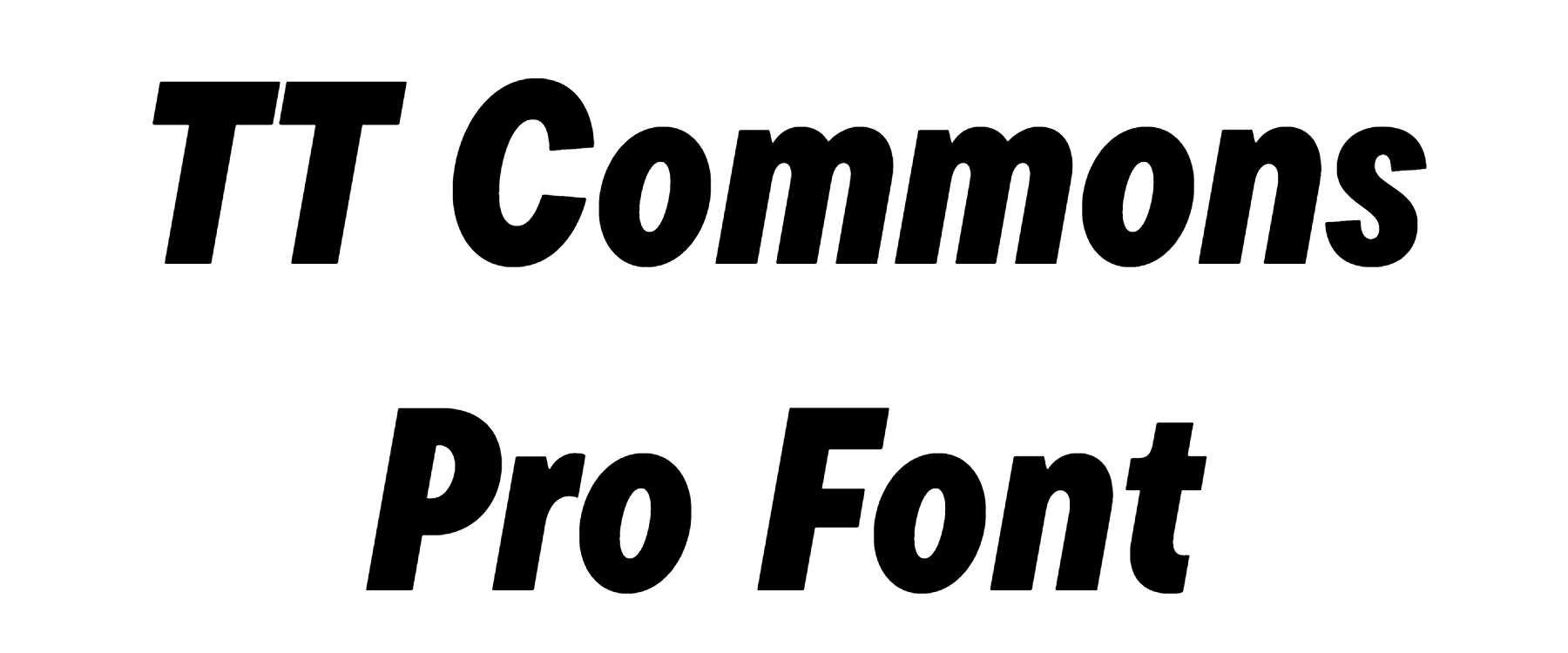
TT Commons Pro
- Designer: TypeType
- Font styles: 4 (Regular, Bold, Bold Italic and Italic)
- Weights: ExtraLight (200) to Weight (1000)
- Width: Condensed
- Glyphs: 96 in the Regular style
- OpenType features: Contextual alternates, one stylistic set and fractions
TT Commons Pro covers the full alphabet in upper and lowercase, plus all ten numbers, so you can set names, dates and prices without switching fonts. Common punctuation such as &, !, ? and @ is included as well. It doesn't include accented letters such as é or ñ, which makes it an English-only font.
Designers usually reach for fonts like TT Commons Pro when they're making websites, app screens and clean logos. Because the letters are narrow, long words fit in tight spaces like book spines, banners and video thumbnails. It works for headings and body text alike. If the download has several weights, use a heavier one for titles and a lighter one for paragraphs. Because the family has more than one style, you can mix them in a single design for headings, subheadings and highlights.